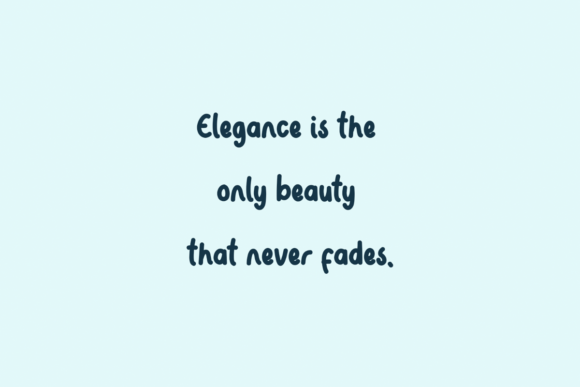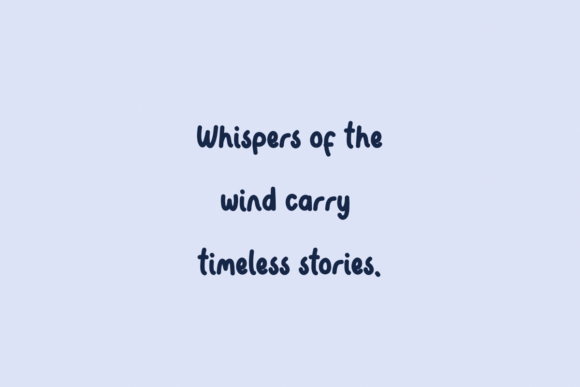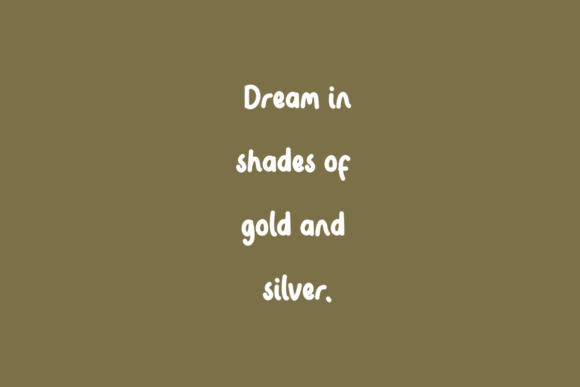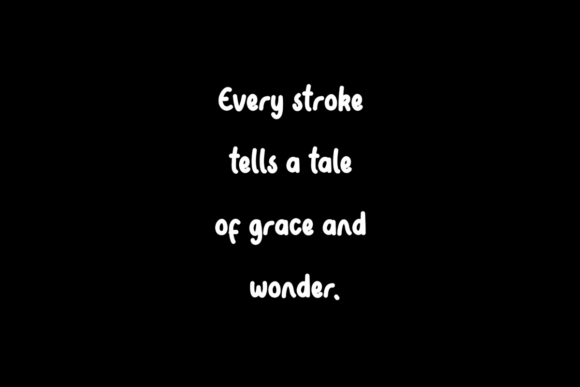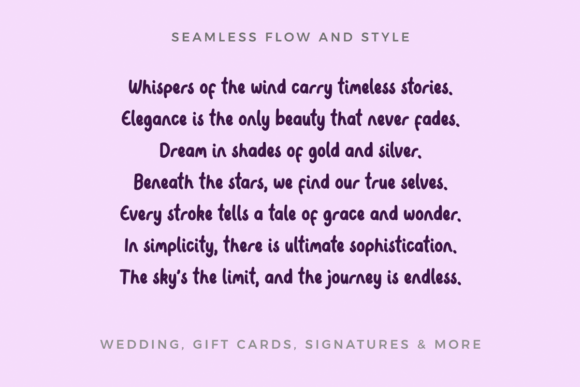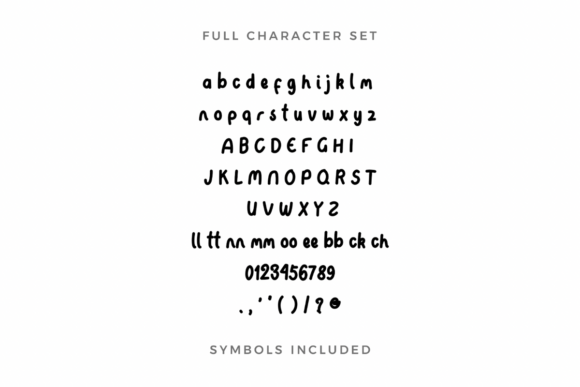
Introducing Bubbly: The Ultimate Handwritten Script Font for Creative Expression
Are you tired of using the same old fonts for your creative projects? Look no further! We’re excited to introduce Bubbly, an inventive and delightful handwritten script font that’s sure to add a personal touch to your designs. With its meticulously crafted design, Bubbly exudes a singular charm that sets it apart from other fonts.
The Perfect Blend of Elegance and Playfulness
Bubbly’s handwriting style effortlessly fuses casual elegance and playful sophistication, making it the perfect choice for designers and crafters who want to add a unique touch to their creations. Whether you’re working on a branding project, a wedding invitation, or a social media graphic, Bubbly is sure to bring a smile to your audience’s faces.
What Makes Bubbly So Special?
So, what makes Bubbly so special? Here are just a few features that set it apart:
- Handwritten with love: Bubbly is a carefully crafted handwritten script font that captures the imperfections and quirks of real handwriting.
- Unique and eye-catching: Bubbly’s distinctive style is sure to grab attention and make your designs stand out from the crowd.
- Effortlessly elegant: Despite its playful nature, Bubbly exudes a sense of elegance and sophistication that’s perfect for high-end designs.
- Lighthearted and fun: Bubbly brings a sense of joy and whimsy to your designs, making it perfect for projects that require a playful touch.
How to Use Bubbly in Your Designs
Bubbly is a versatile font that can be used in a variety of design projects, including:
- Branding and packaging: Use Bubbly to add a personal touch to your brand’s logo, packaging, and marketing materials.
- Wedding and event planning: Bubbly is perfect for wedding invitations, save-the-date cards, and other event-related designs.
- Social media graphics: Add a playful touch to your social media graphics, such as Instagram posts and Facebook covers.
- Stationery and paper crafts: Use Bubbly to create beautiful stationery, journals, and other paper crafts.
Tips for Getting the Most Out of Bubbly
Here are a few tips for getting the most out of Bubbly:
- Experiment with different colors: Bubbly looks great in a variety of colors, so don’t be afraid to experiment and find the perfect hue for your design.
- Mix and match with other fonts: Bubbly pairs well with a variety of other fonts, so try combining it with other fonts to create a unique look.
- Use it sparingly: While Bubbly is a beautiful font, it can be overwhelming if used too much. Use it sparingly to add a touch of elegance and whimsy to your designs.
- Handwritten script font
- Unique and eye-catching design
- Effortlessly elegant and playful
- Perfect for branding, wedding, and social media designs